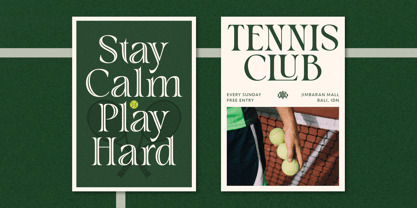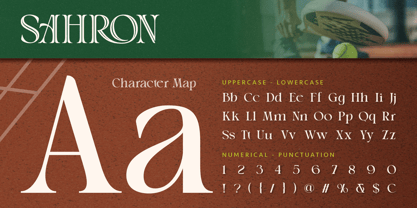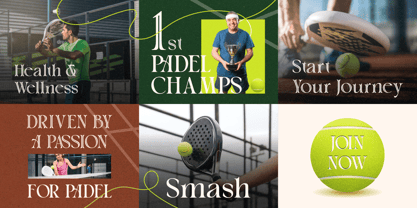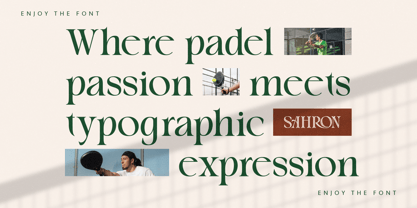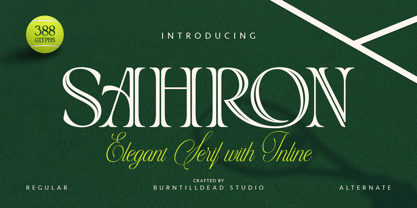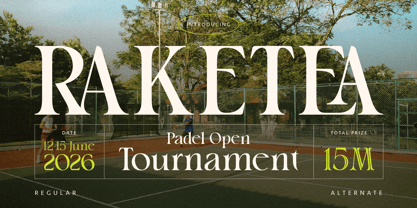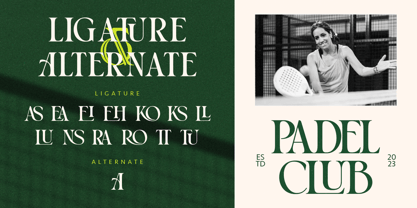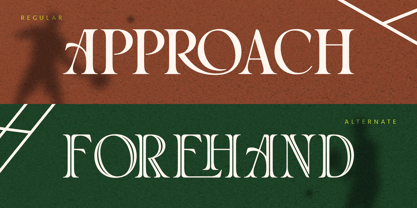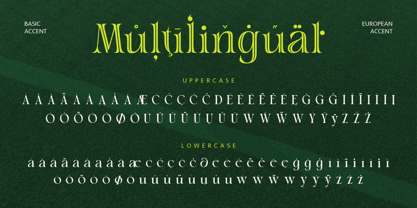
Sahron
La familia tipográfica Sahron fue diseñada por Eric Kurniawan y publicada por Burntilldead. Sahron contiene 2 estilos y opciones de paquete familiar. Más información sobre esta familia
Sahron is an elegant serif font with a distinctive inline detail that adds character and sophistication. Designed to feel modern yet timeless, Sahron brings a refined look while staying bold and expressive. With clean letterforms, smooth curves, alternates, and stylish ligatures, this font works beautifully for editorial layouts, sports branding, luxury logos, event posters, and premium marketing designs. Sahron also supports multilingual characters, making it flexible for both local and international projects. Features: A - Z set (Uppercase & Lowercase), Number, Punctuation, Alternates, Ligatures, Multilingual